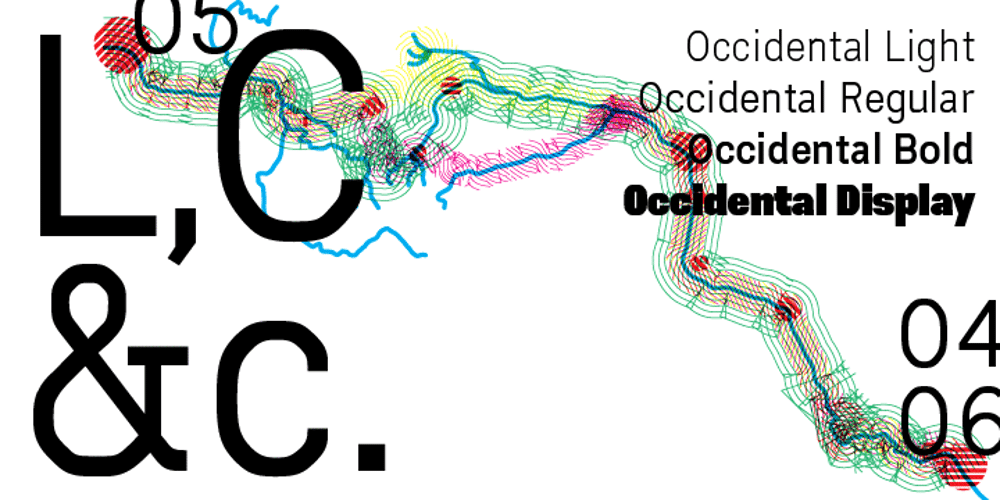
Occidental Font Family was designed by Ryan Corey and published by Ryan Corey. Occidental contains 7 styles and family package options. The Occidental family is a geometric, sans-serif text face marked by its angular construction. Occidental is suitable and economical enough to set large blocks of copy, but at display sizes Occidental’s inherent character takes over making it useful for headline setting as well. The family includes four weights, each with corresponding italics (excepting Display) for a total of seven fonts.